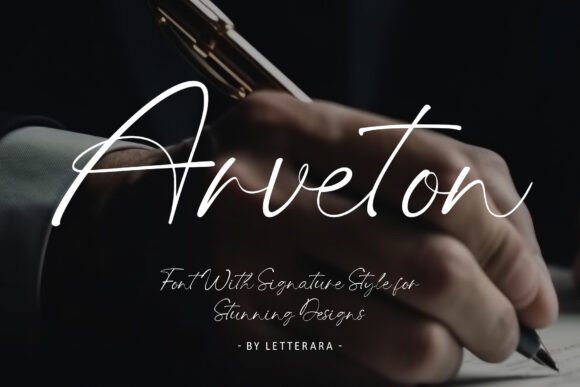
The Elusive Perfect Font: My Encounter with Arveton
I’ll never forget the frustration of working on a wedding invitation project, scrolling through font after font, trying to find that perfect signature style that exuded elegance and personality. My client wanted something that felt personal, yet sophisticated. I wanted to deliver. That’s when I stumbled upon Arveton, a font that has since become a staple in my design toolkit.
Arveton: A Sophisticated Signature Font
Arveton is a beautifully crafted font that blends the fluidity of handwritten strokes with modern elegance. Designed to feel personal and expressive, each letter flows naturally, like a real signature. This font is perfect for logos, branding, wedding invitations, and stylish packaging. With its unique character, Arveton adds a touch of authenticity and charm to your designs.
Here’s what I love about Arveton:
- ✨ Fluid and natural strokes: Each letter feels like it was written by hand, adding a personal touch to your designs.
- ✅ PUA encoding: This feature allows for easy access to glyphs and alternates, giving you creative freedom.
- 🔥 Versatility: With a range of alternates and OpenType features, you can customize your typography to fit your project’s needs.
- 💕 Elegant and sophisticated: Arveton’s modern elegance makes it perfect for high-end designs and luxury brands.
And, of course, no font is perfect. Here are some minor quirks:
- 🤔 Some letters may require manual kerning: While Arveton’s overall spacing is great, some letter combinations might need a bit of tweaking.
- ⚠️ Limited use in very small sizes: Arveton shines in larger sizes, but may lose some of its elegance when used very small.
The Story Behind Arveton
Arveton was designed with the intention of capturing the essence of a handwritten signature. Its creator aimed to craft a font that felt both personal and elegant, perfect for designs that require a touch of sophistication. Inspired by the fluid strokes of handwriting, Arveton brings a sense of authenticity to any design.
- Q: What is PUA encoding, and how does it benefit Arveton?
- A: PUA (Private Use Area) encoding allows designers to access a range of glyphs and alternates, making it easier to customize typography.
- Q: Is Arveton suitable for body text?
- A: While Arveton is stunning in headings and titles, it’s not ideal for large blocks of body text. Its elegance shines in shorter texts and display settings.